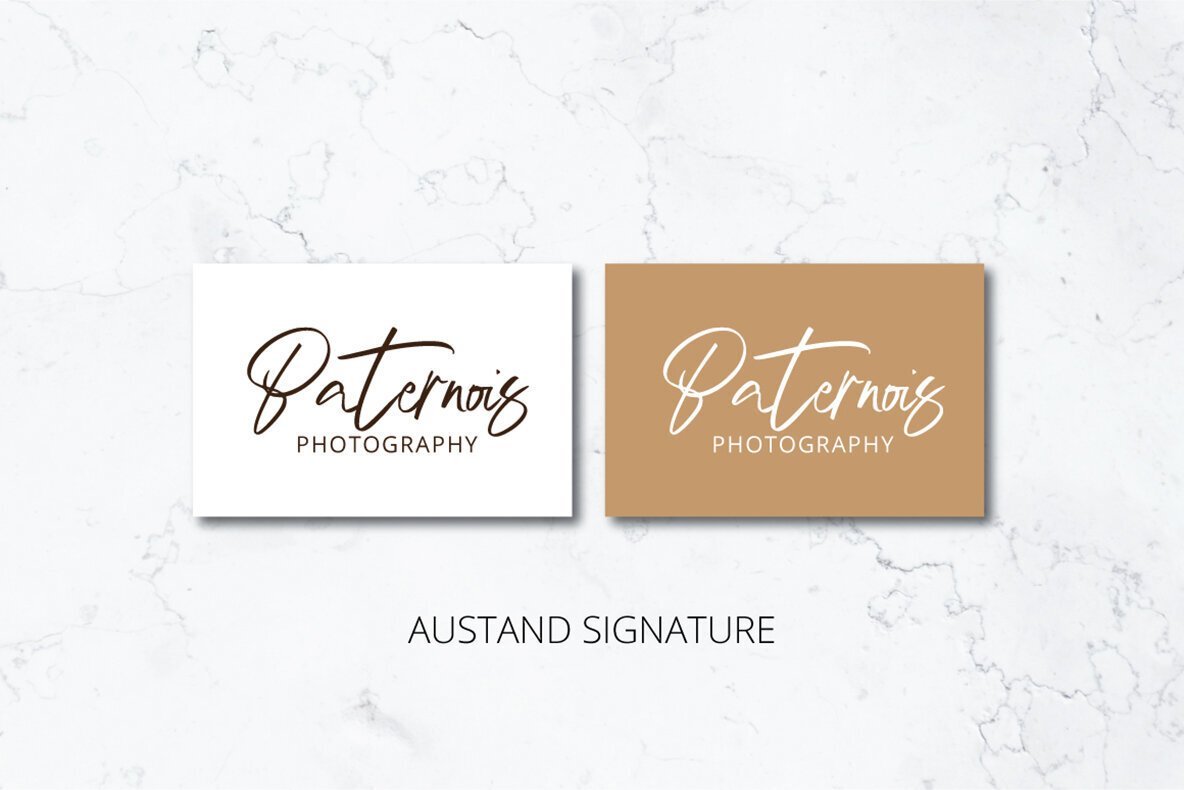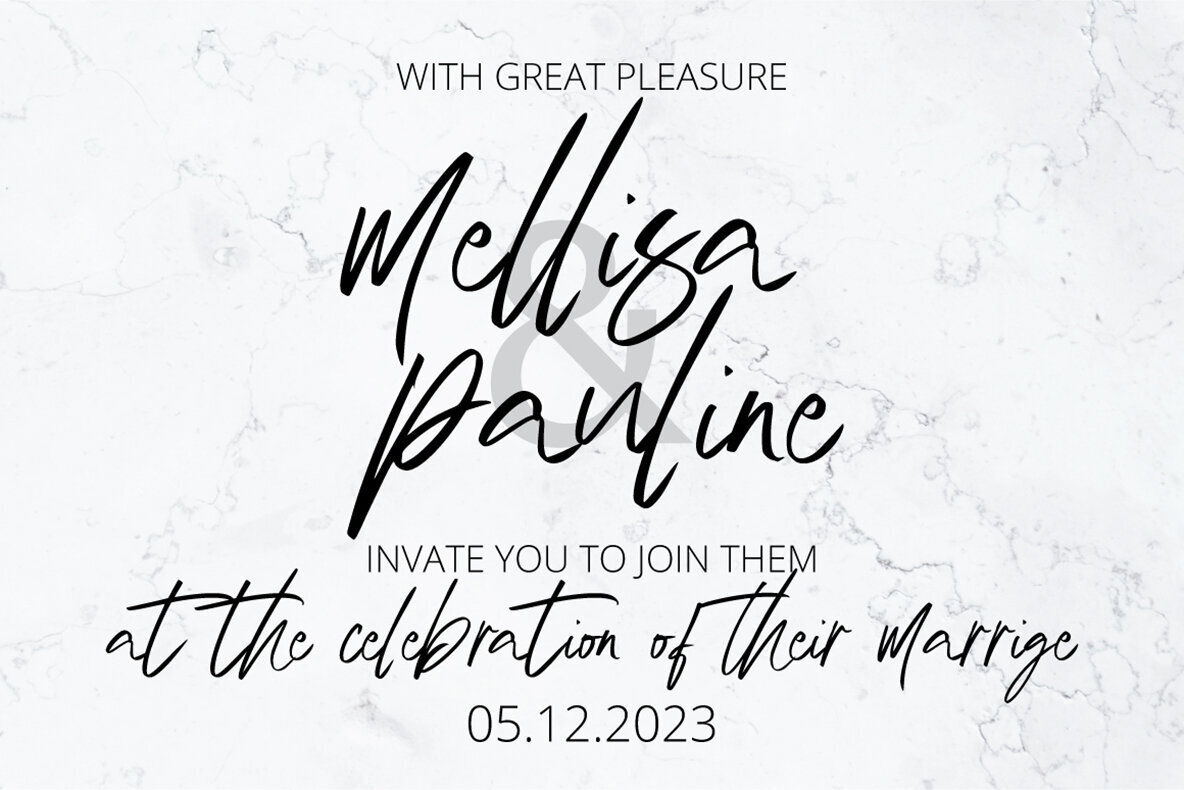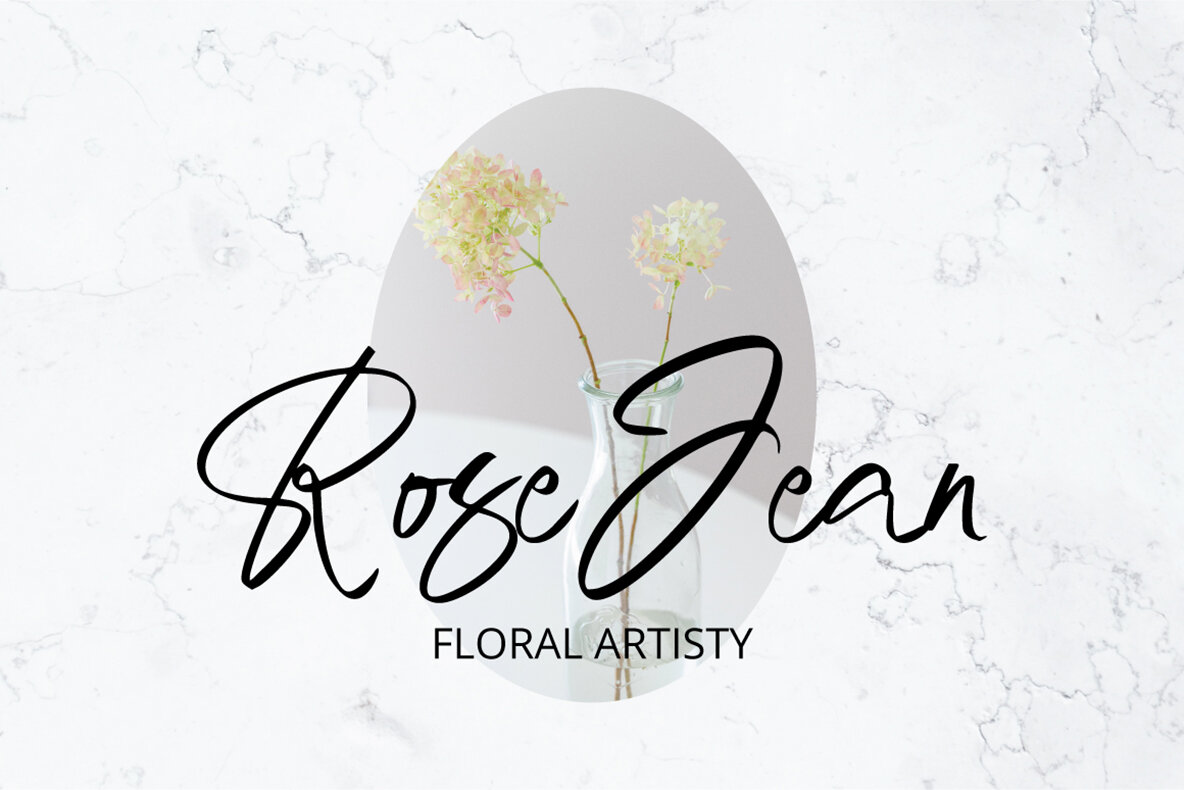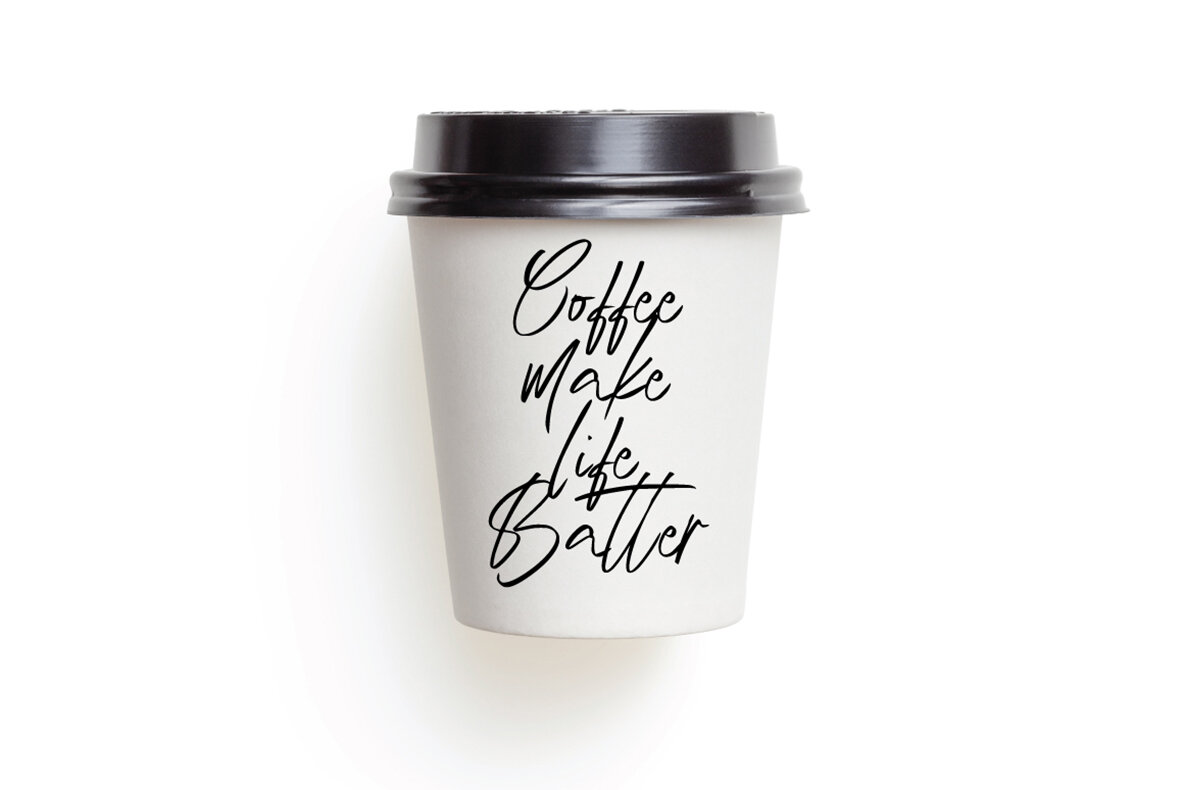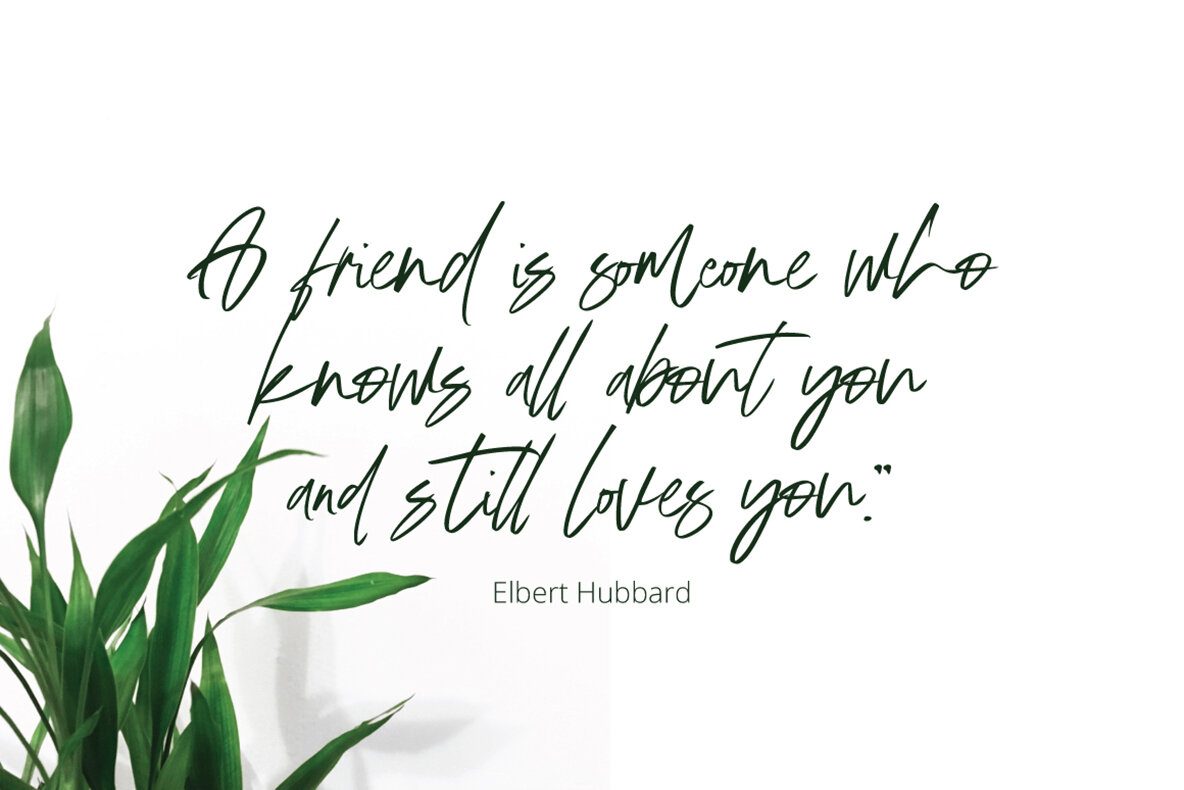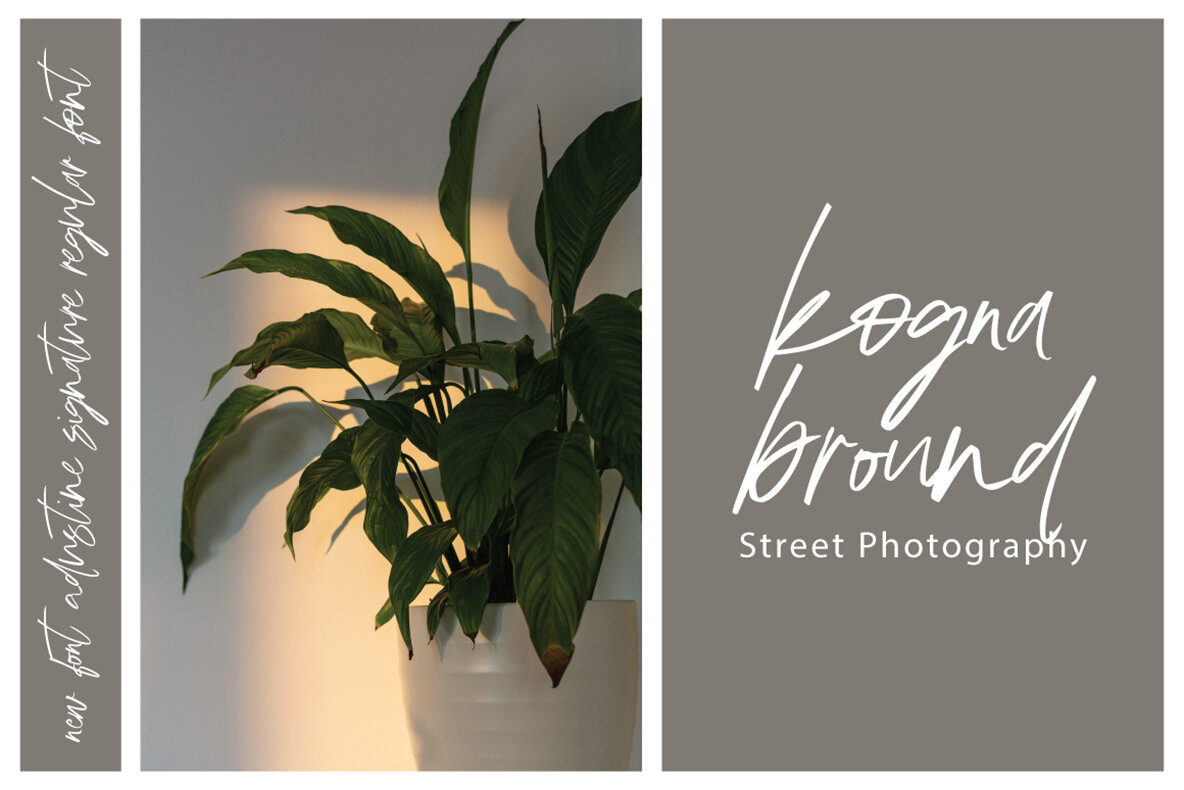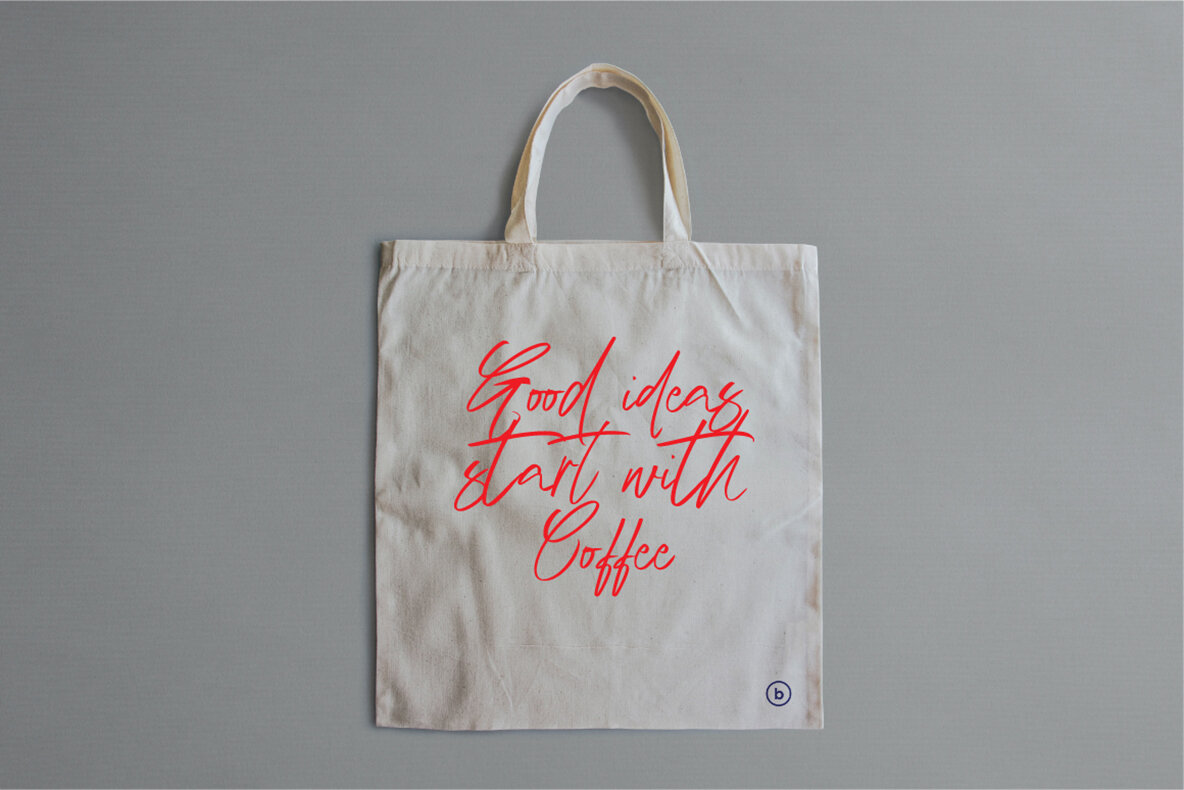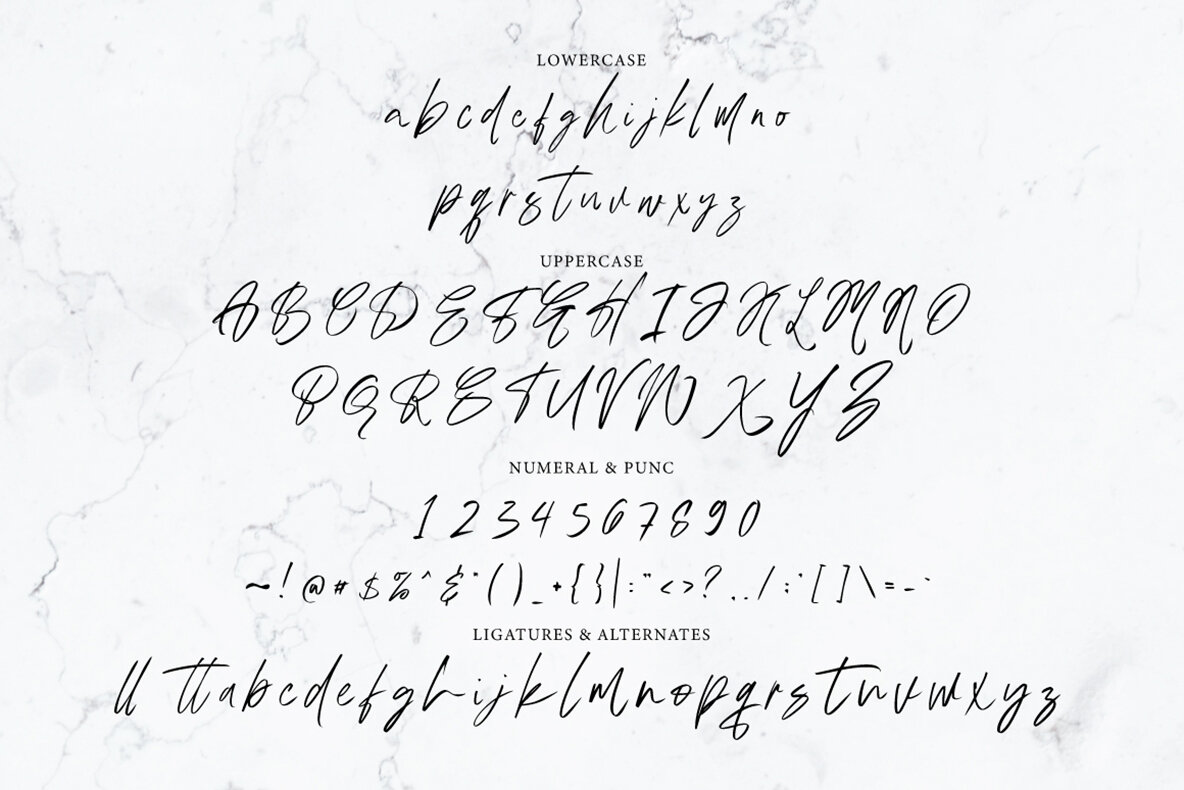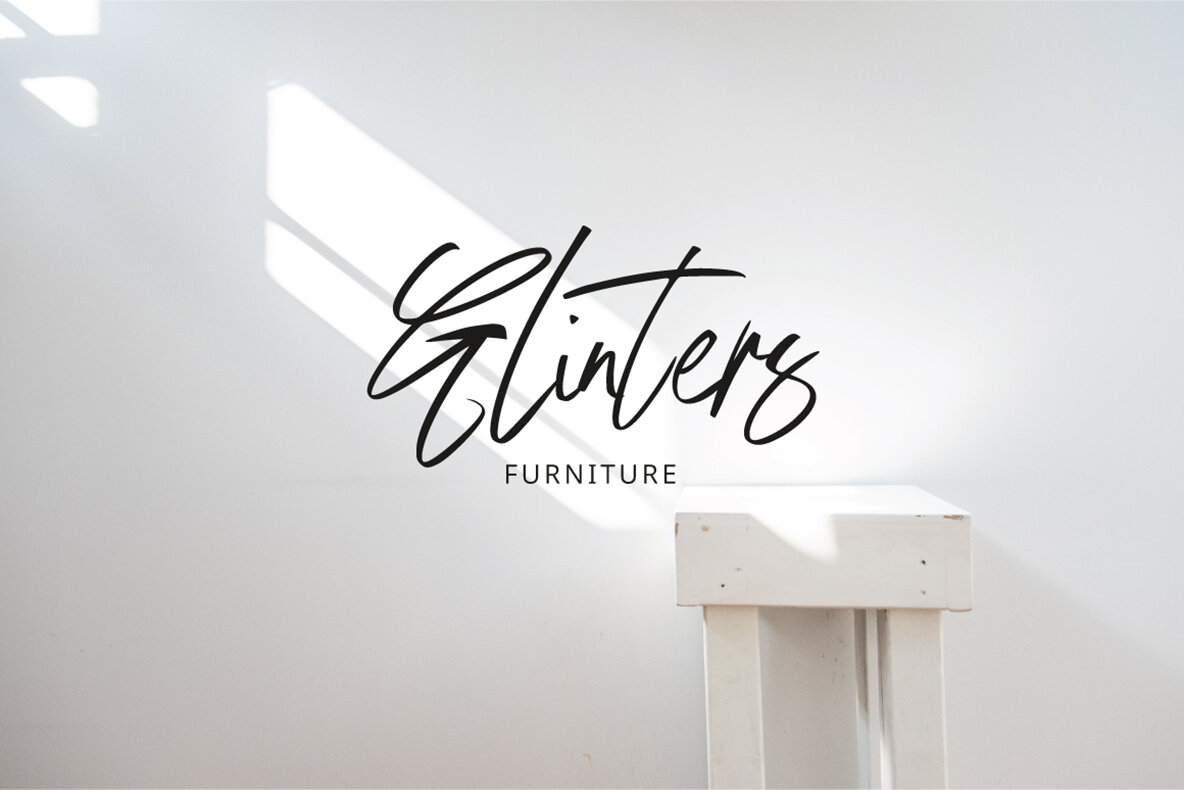
Austand Signature Font
Austand Signature Regular
Austand Signature features a handcrafted signature style accompanied by decorative characters and a unique dancing baseline. This beautiful font is perfect for invitations like greeting cards, branding materials, business cards, quotes, posters, and more. Austand Signature includes over 200 glyphs. The alternative characters are offered through Open Type features such as Swash, Stylistic Sets, Stylistic Alternates, and Ligature. Access these features with Open Type-savvy programs like Adobe Illustrator, Adobe InDesign, Adobe Photoshop, Corel Draw X, and Microsoft Word. This font also offers PUA Unicode, allowing craftspeople and designers full access to all alternate characters.Austand Signature: A Handmade Signature Font with Decorative Elements